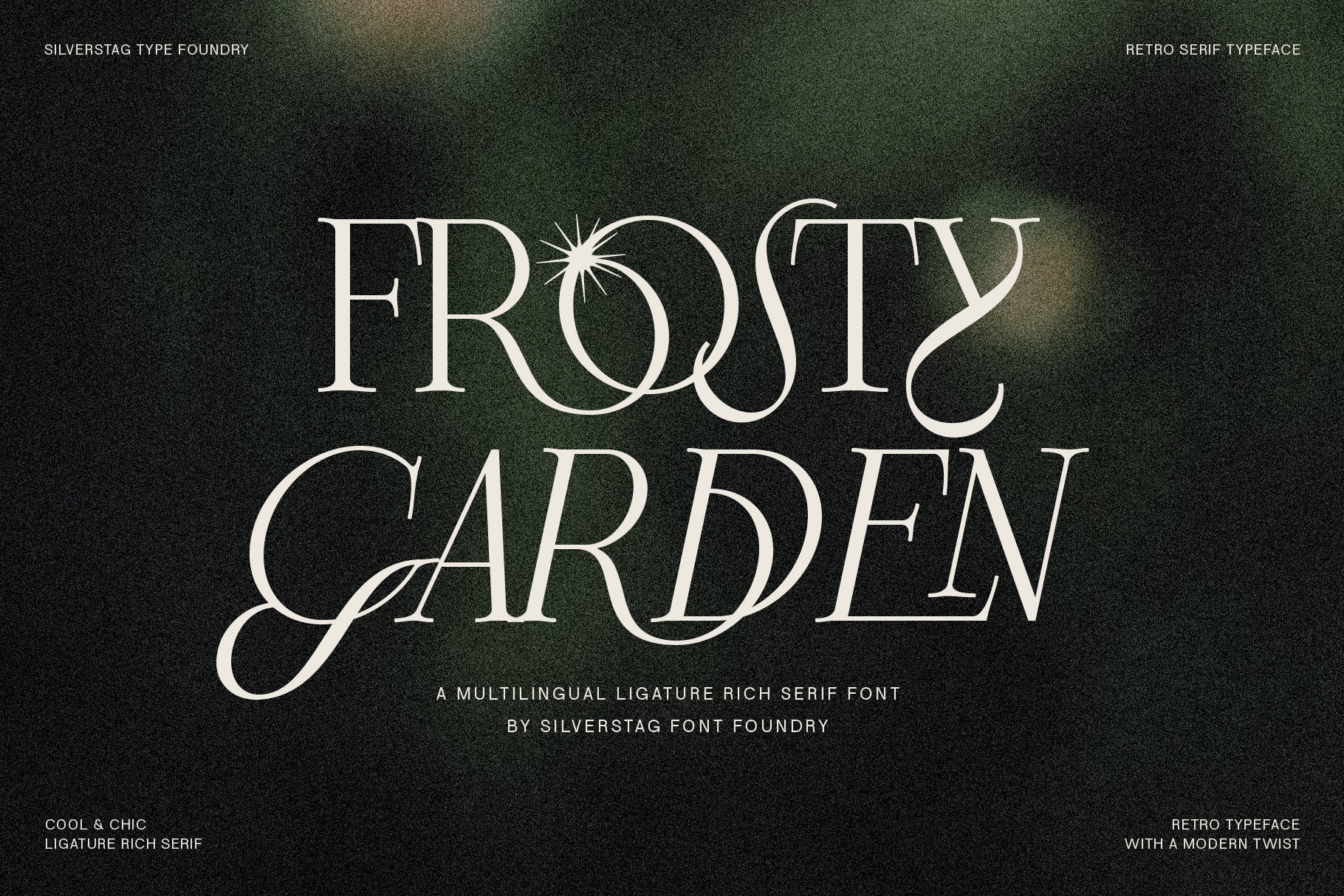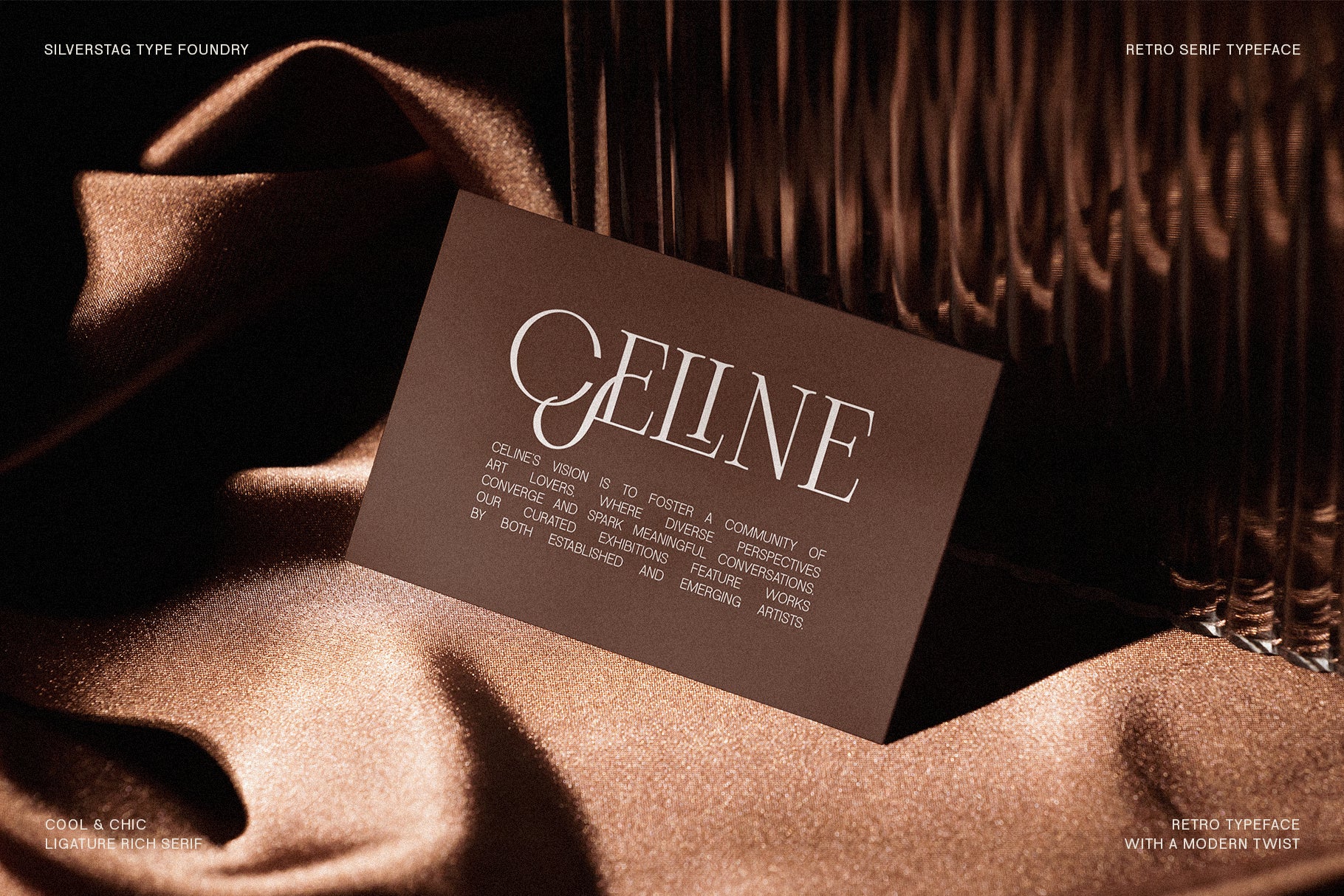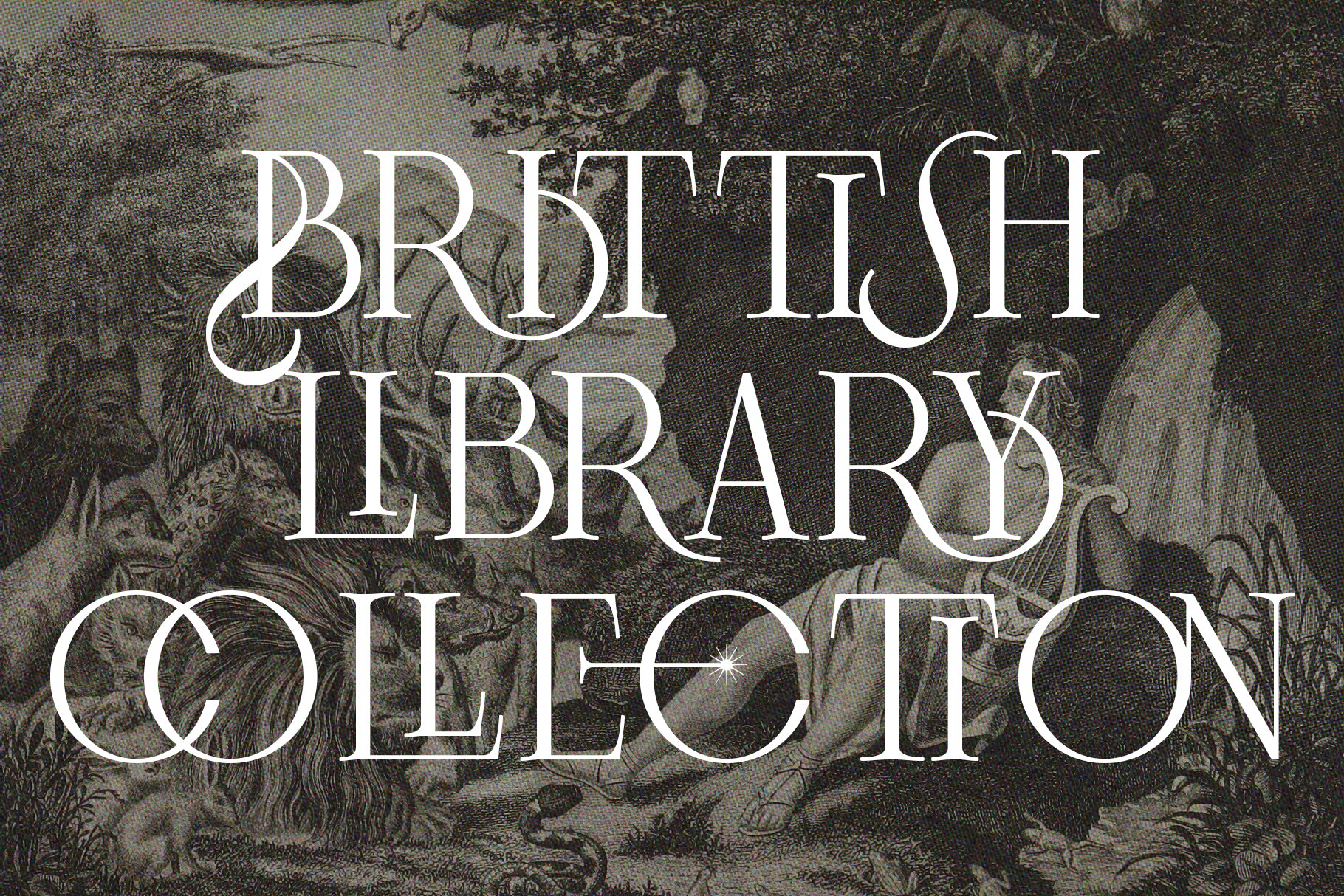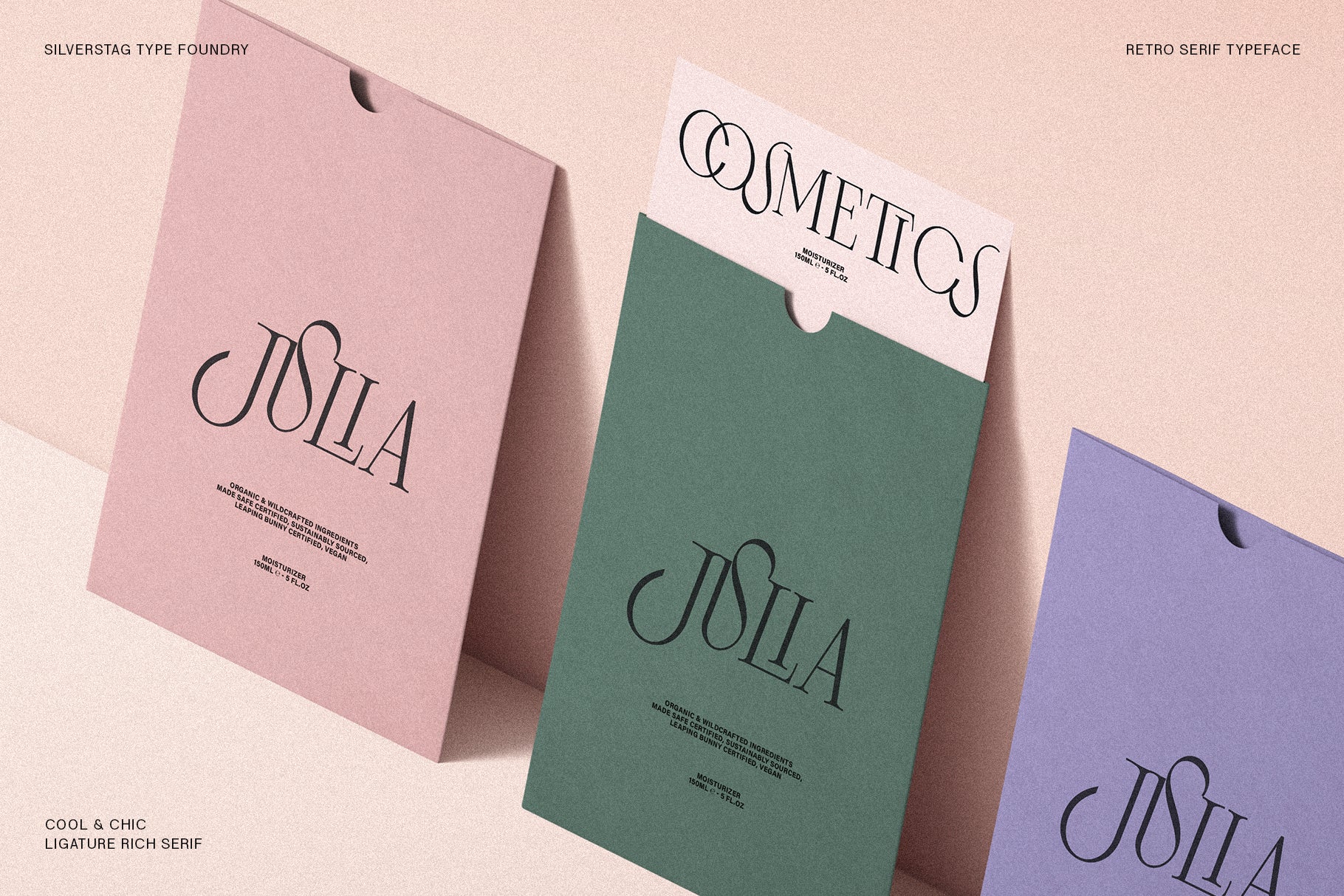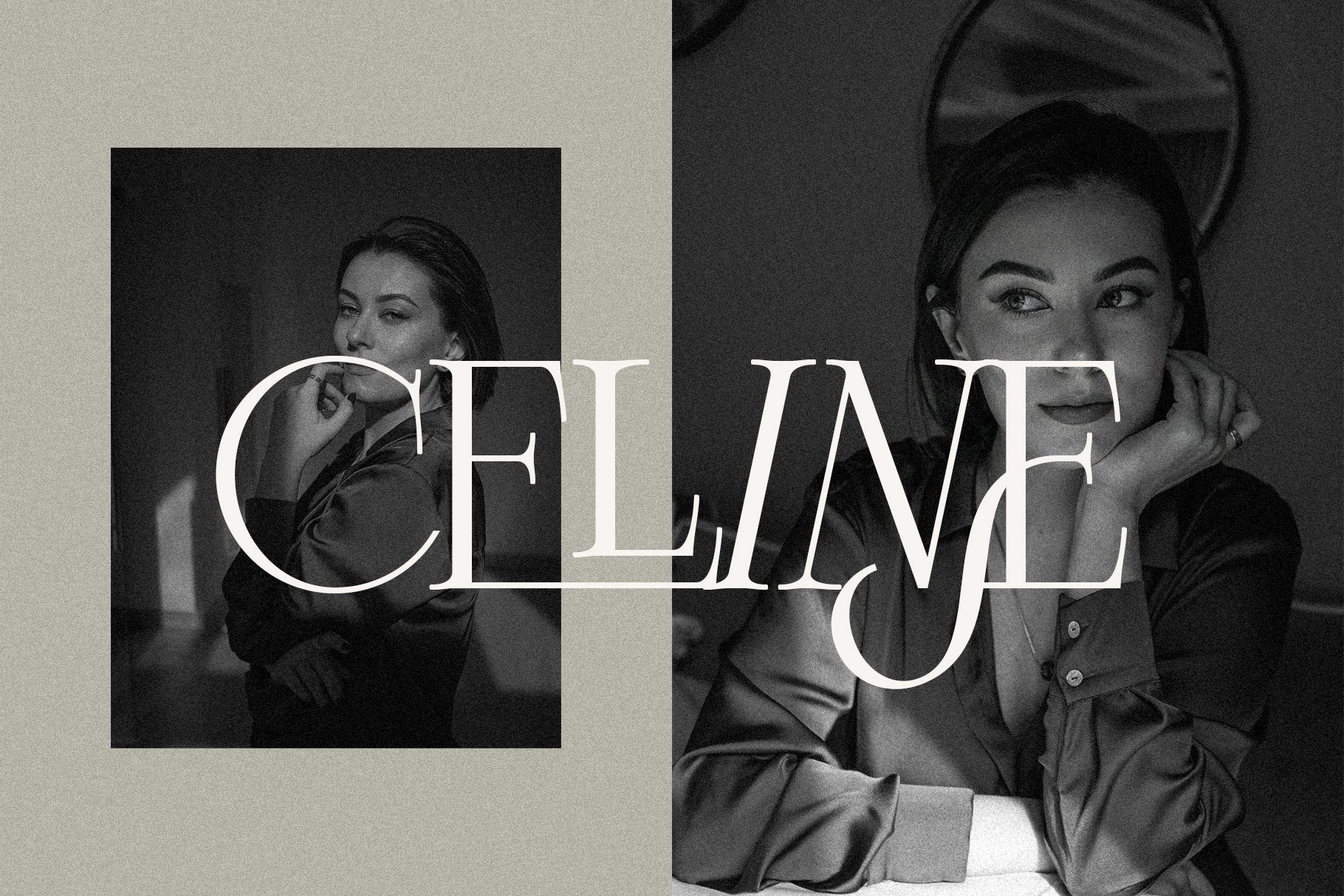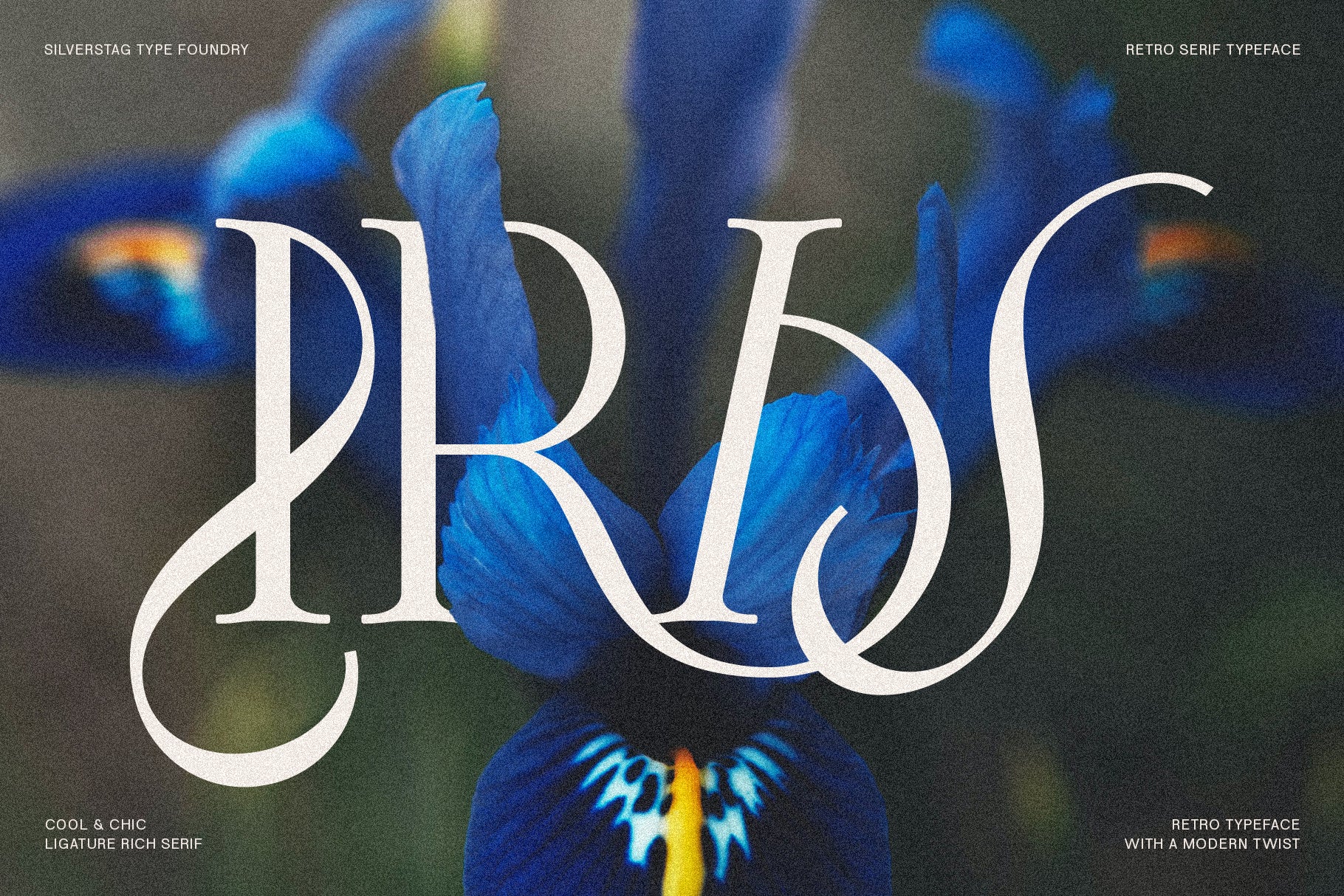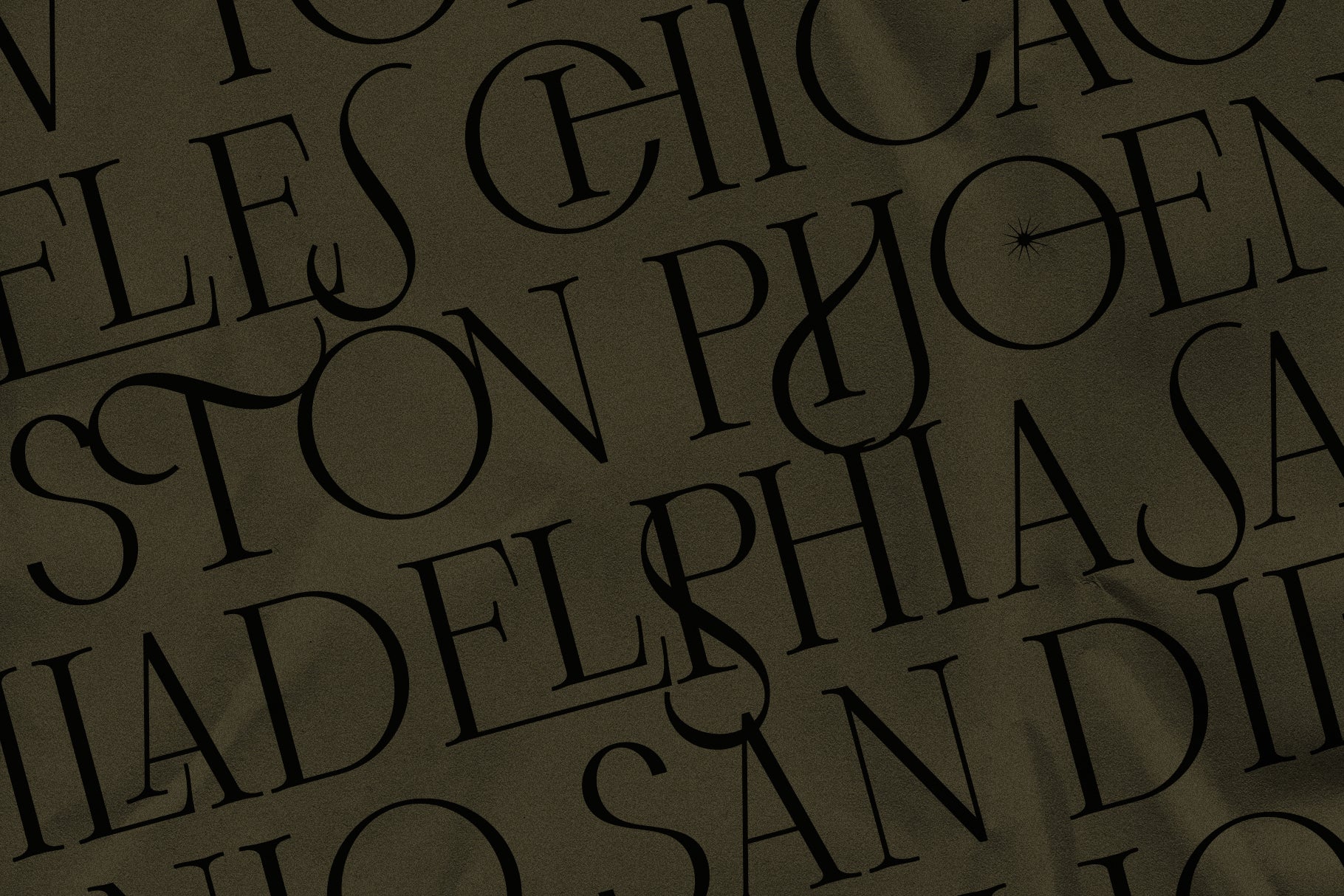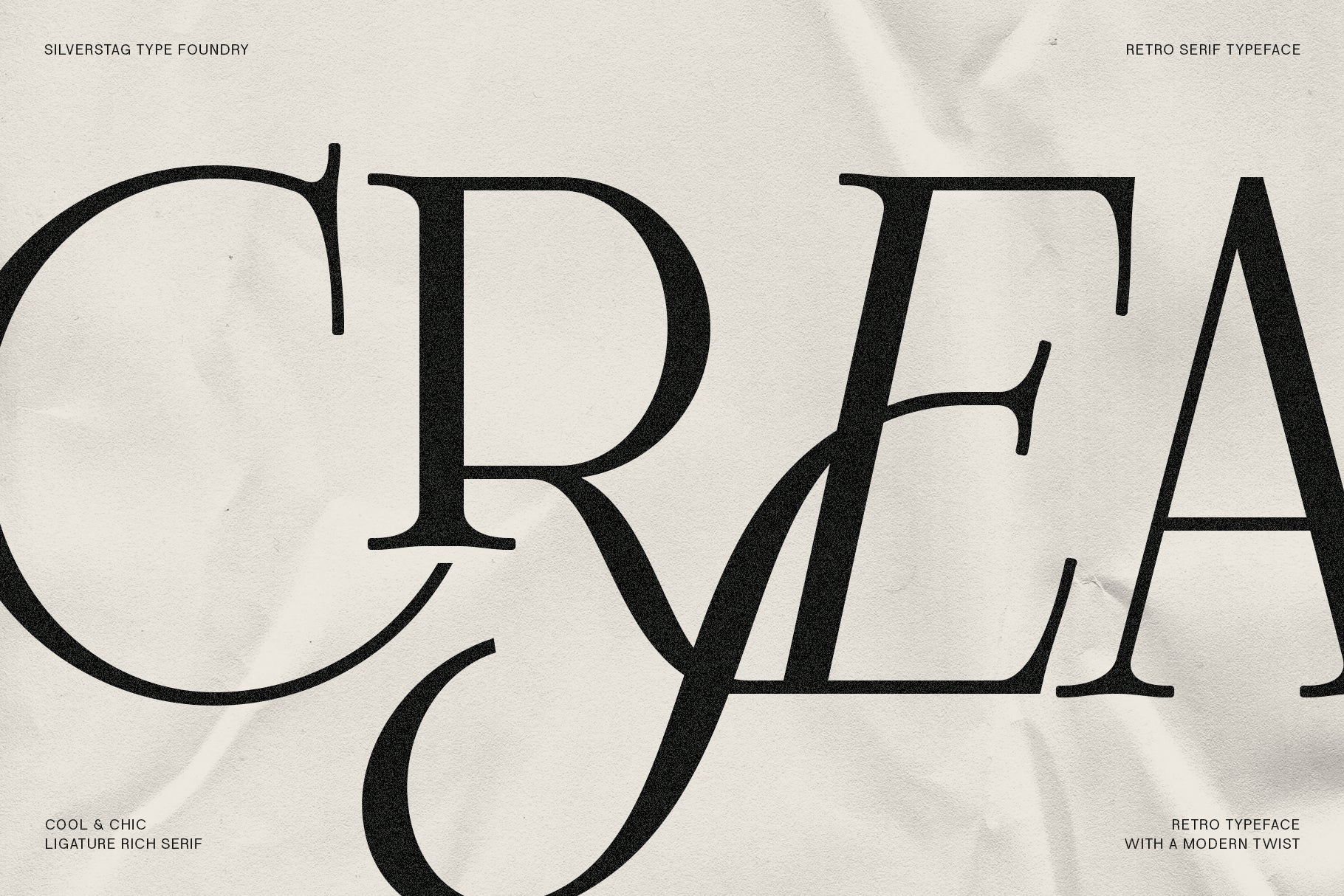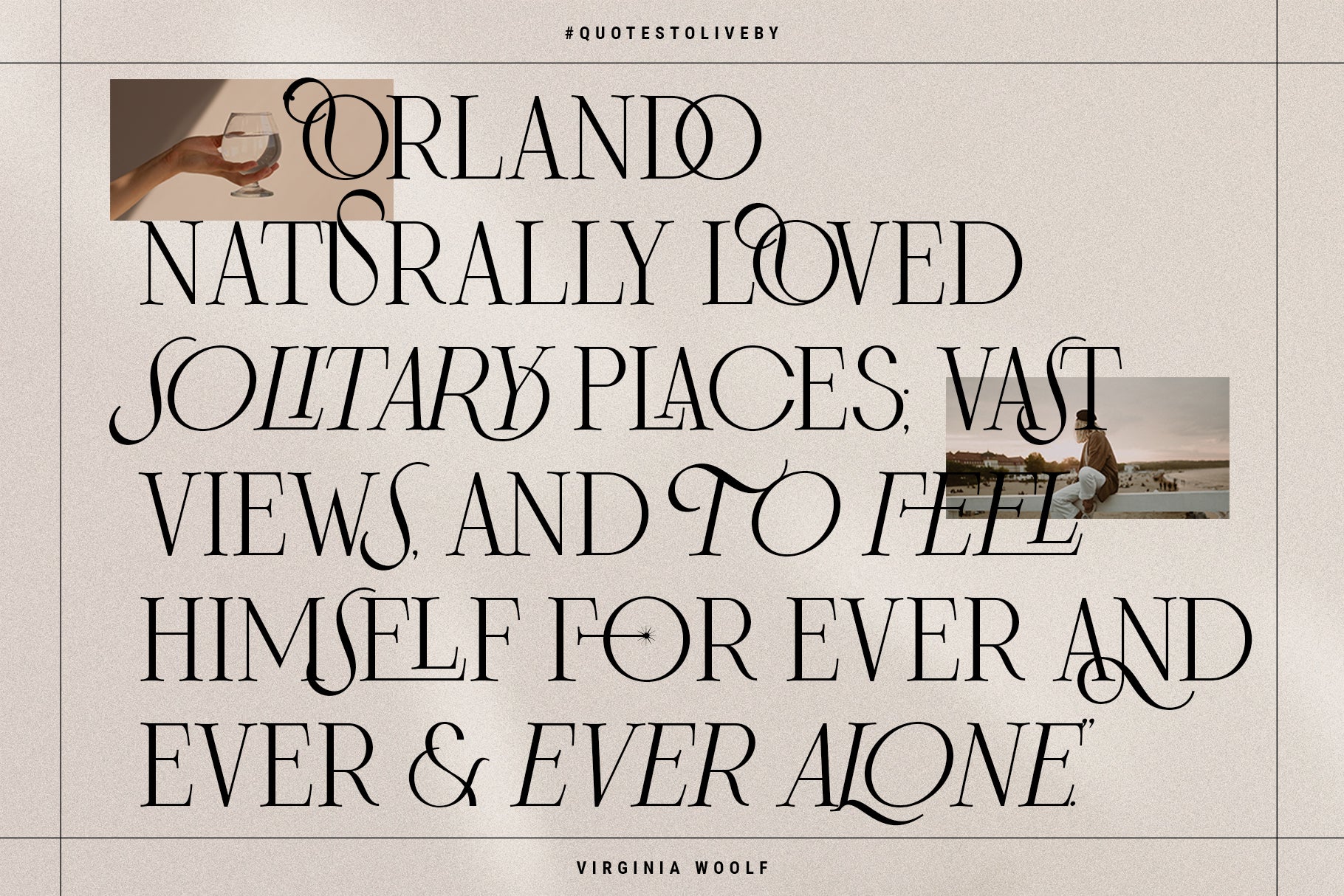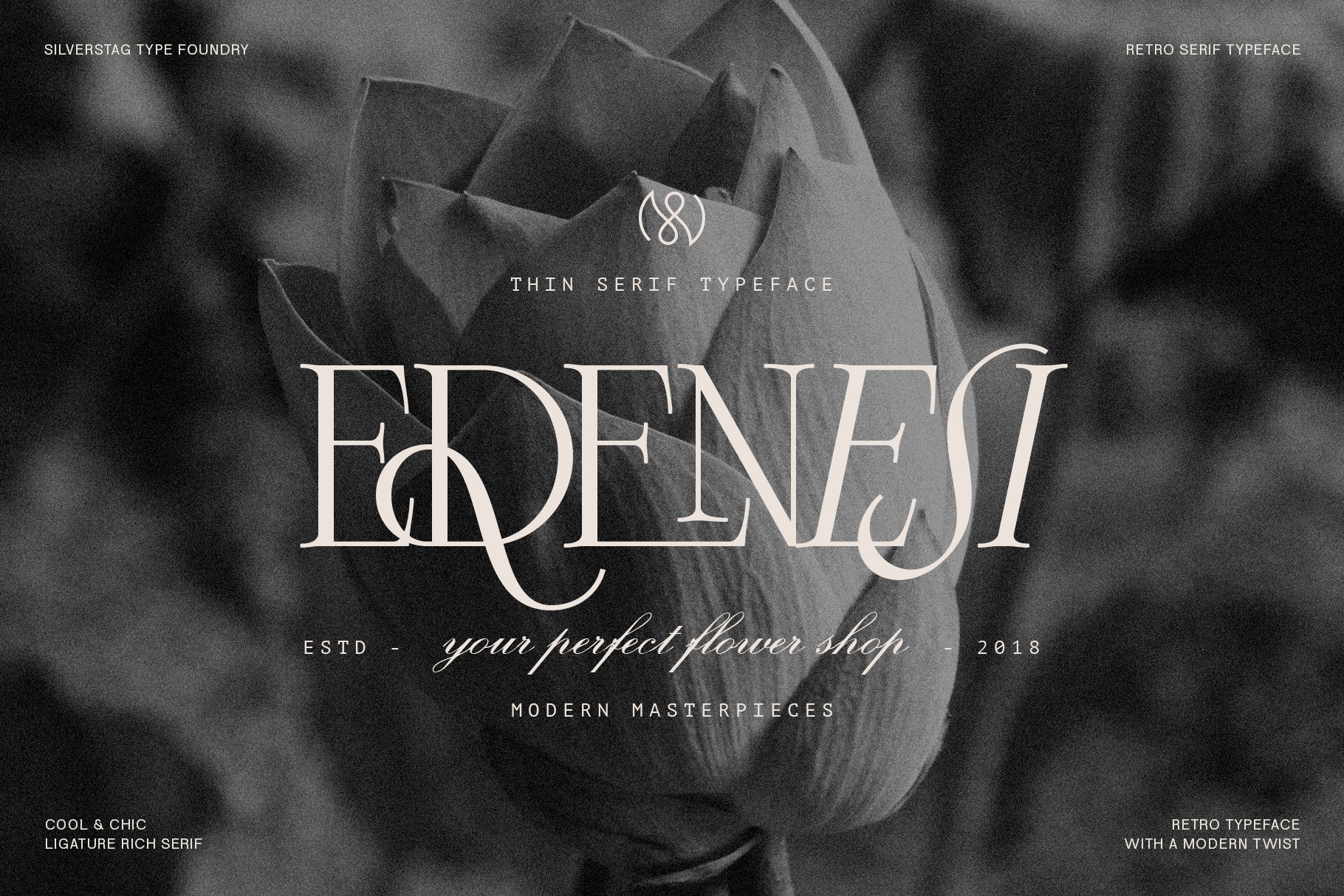
Frosty Garden is a retro serif font that brings vintage charm, playful elegance, and typographic sophistication into one beautiful package. Inspired by the beloved spirit of Frosty Xmas, this evolved version offers broader design flexibility while preserving its nostalgic essence.
With two distinct styles—Regular and Italic—Frosty Garden gives you creative...
Frosty Garden is a retro serif font that brings vintage charm, playful elegance, and typographic sophistication into one beautiful package. Inspired by the beloved spirit of Frosty Xmas, this evolved version offers broader design flexibility while preserving its nostalgic essence.
With two distinct styles—Regular and Italic—Frosty Garden gives you creative control over mood and tone. The regular style features soft, flowing letterforms that feel calm and refined, while the italic variant introduces a touch of whimsical flair.
This font includes over 80 ligatures and alternates, designed to create flowing, decorative typography full of personality and individuality. From logos to headlines, posters to packaging, Frosty Garden adds flair without sacrificing readability.
Supporting over 90 languages, it’s ready for global use—ideal for branding, editorial design, stationery, and seasonal or year-round creative work.